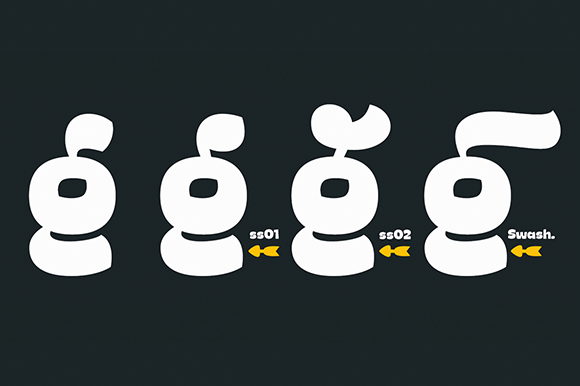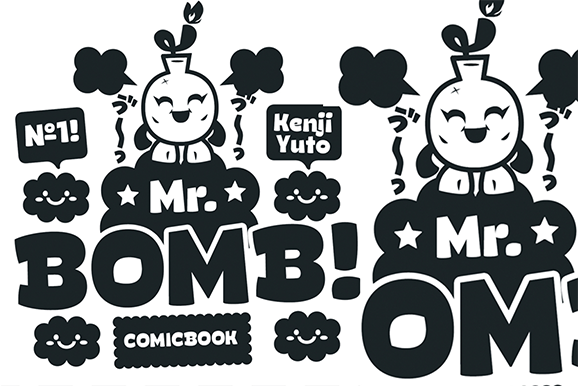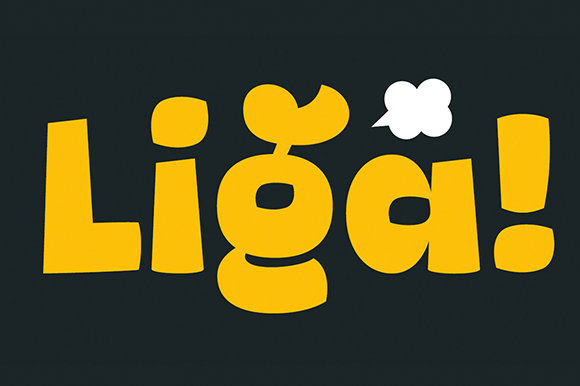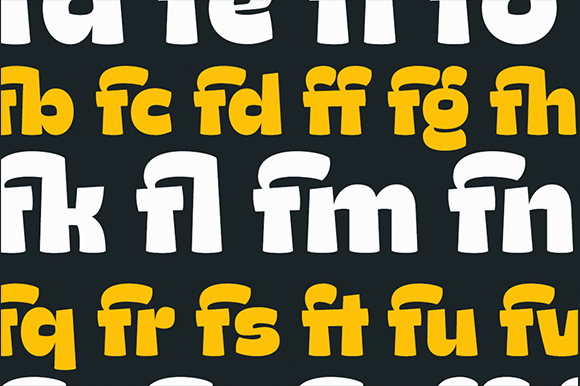
Ding Font: A Magical Display Font for Your Designs
Are you looking for a font that can add a touch of magic to your designs? Look no further than Ding Font, a bold and thick lettered display font that’s perfect for creating whimsical and modern designs. With its unique style, Ding Font is sure to immerse your designs into a magical world that will captivate your audience.
What is Ding Font?
Ding Font is a display font that’s designed to make a statement. Its bold and thick letters are perfect for creating eye-catching headlines, titles, and quotes that will grab the attention of your audience. The font has a modern yet whimsical style that’s reminiscent of fantasy and adventure. Whether you’re designing a logo, a poster, or a social media graphic, Ding Font is the perfect choice.
Key Features of Ding Font
- Bold and Thick Letters: Ding Font features bold and thick letters that are perfect for creating eye-catching designs.
- Modern yet Whimsical Style: The font has a modern yet whimsical style that’s perfect for creating designs that are both trendy and playful.
- Magical and Fantasy-Inspired: Ding Font is perfect for creating designs that are inspired by fantasy and adventure.
- Easy to Read: Despite its bold and thick letters, Ding Font is easy to read, making it perfect for creating designs that need to communicate a message.
Uses of Ding Font
Ding Font is a versatile font that can be used for a variety of design projects. Here are some of the most popular uses of Ding Font:
- Logos and Branding: Ding Font is perfect for creating logos and branding materials that need to make a statement.
- Posters and Flyers: The font is great for creating posters and flyers that need to grab the attention of your audience.
- Social Media Graphics: Ding Font is perfect for creating social media graphics that need to stand out in a crowded feed.
- Signage and Displays: The font is great for creating signage and displays that need to be easy to read from a distance.
Tips for Using Ding Font
Here are some tips for using Ding Font in your designs:
- Use it Sparingly: Ding Font is a bold font, so it’s best to use it sparingly to avoid overwhelming your design.
- Pair it with Other Fonts: The font pairs well with other fonts, so don’t be afraid to experiment with different combinations.
- Use it for Headlines: Ding Font is perfect for creating headlines and titles that need to grab the attention of your audience.
- Experiment with Colors: The font looks great in a variety of colors, so don’t be afraid to experiment with different color schemes.
Ding Font is a magical display font that’s perfect for creating whimsical and modern designs. With its bold and thick letters, modern yet whimsical style, and magical and fantasy-inspired aesthetic, Ding Font is sure to immerse your designs into a magical world. Whether you’re a designer, a crafter, or a DIY enthusiast, Ding Font is a great addition to your font collection.